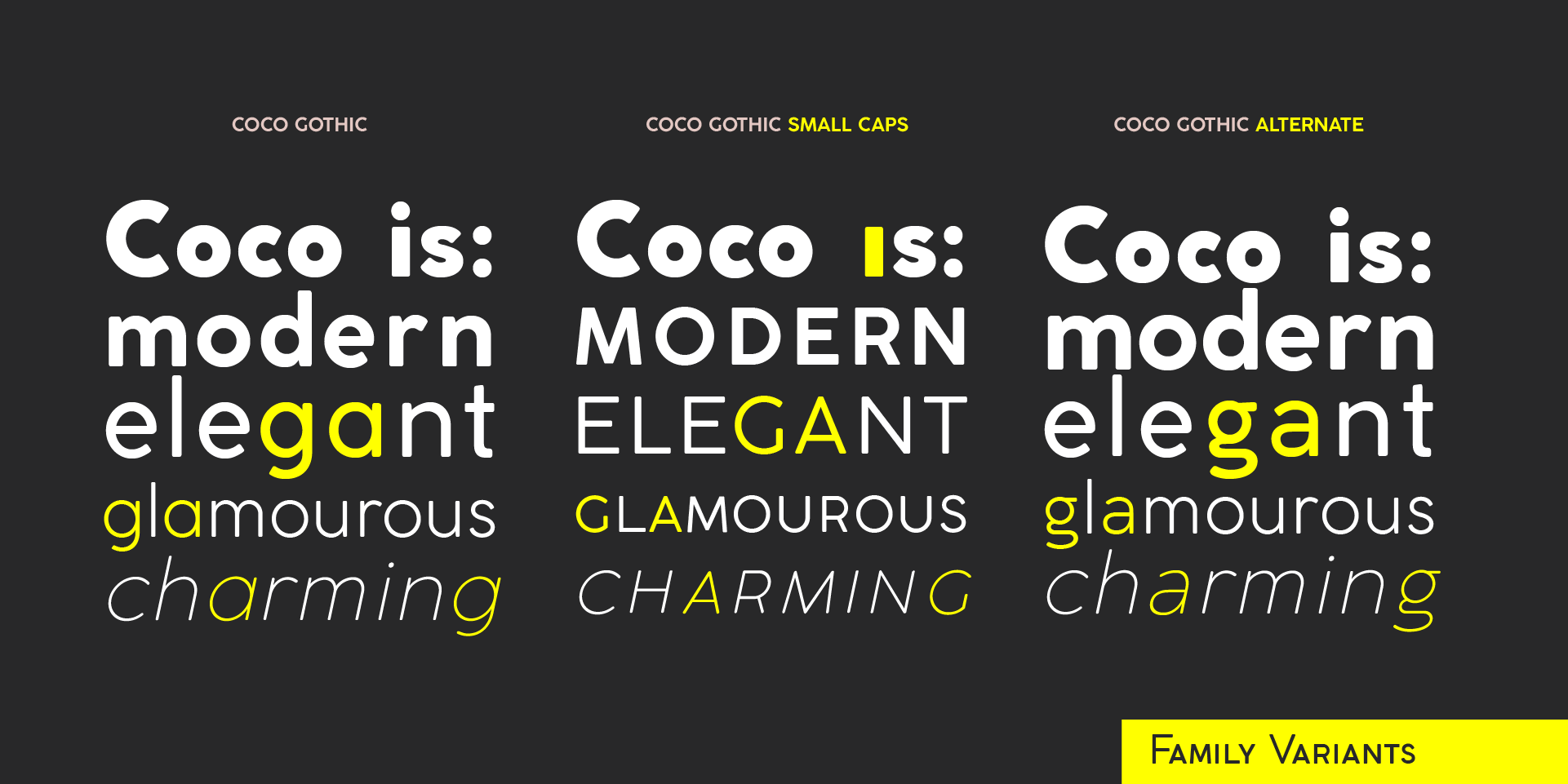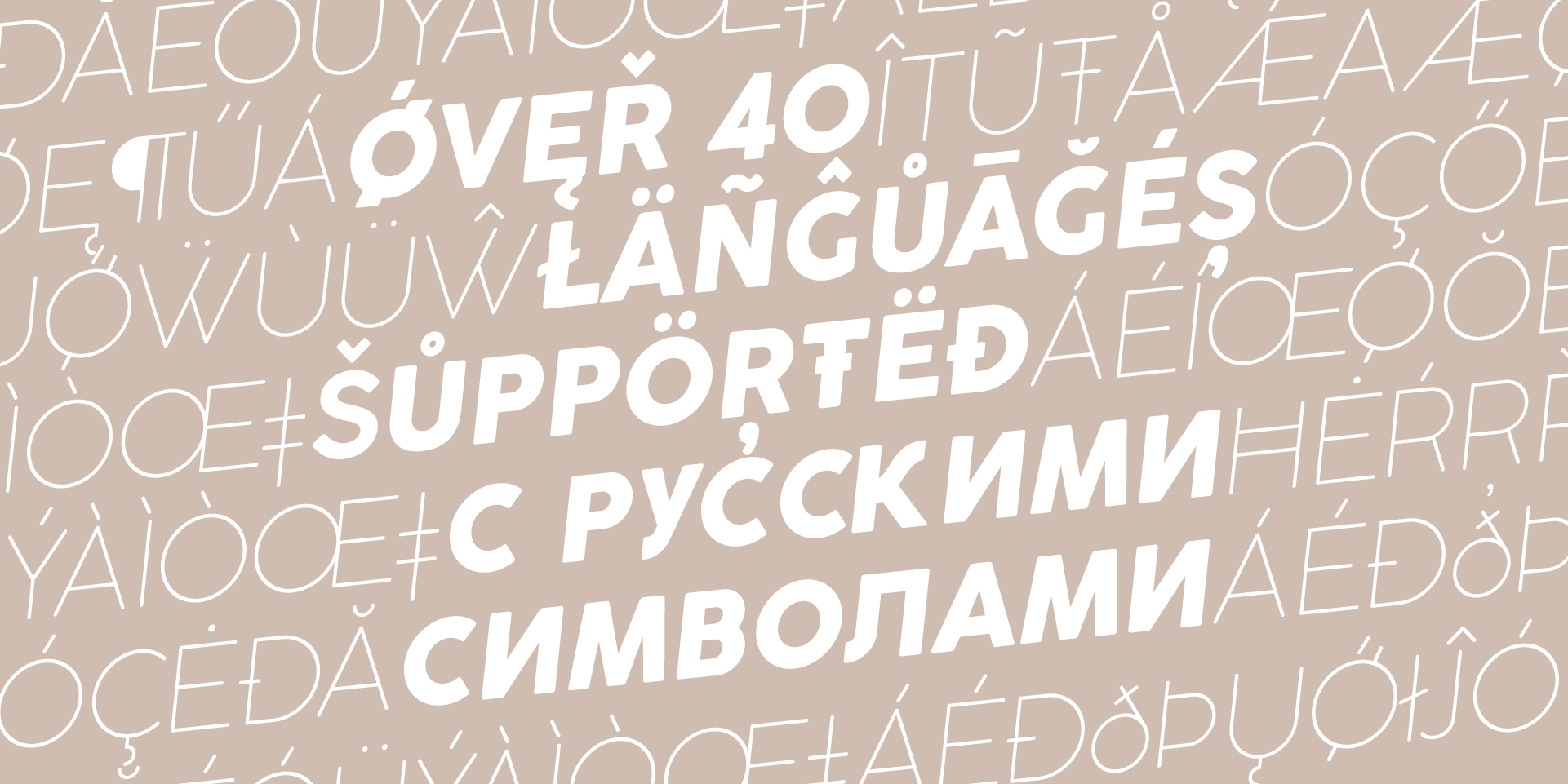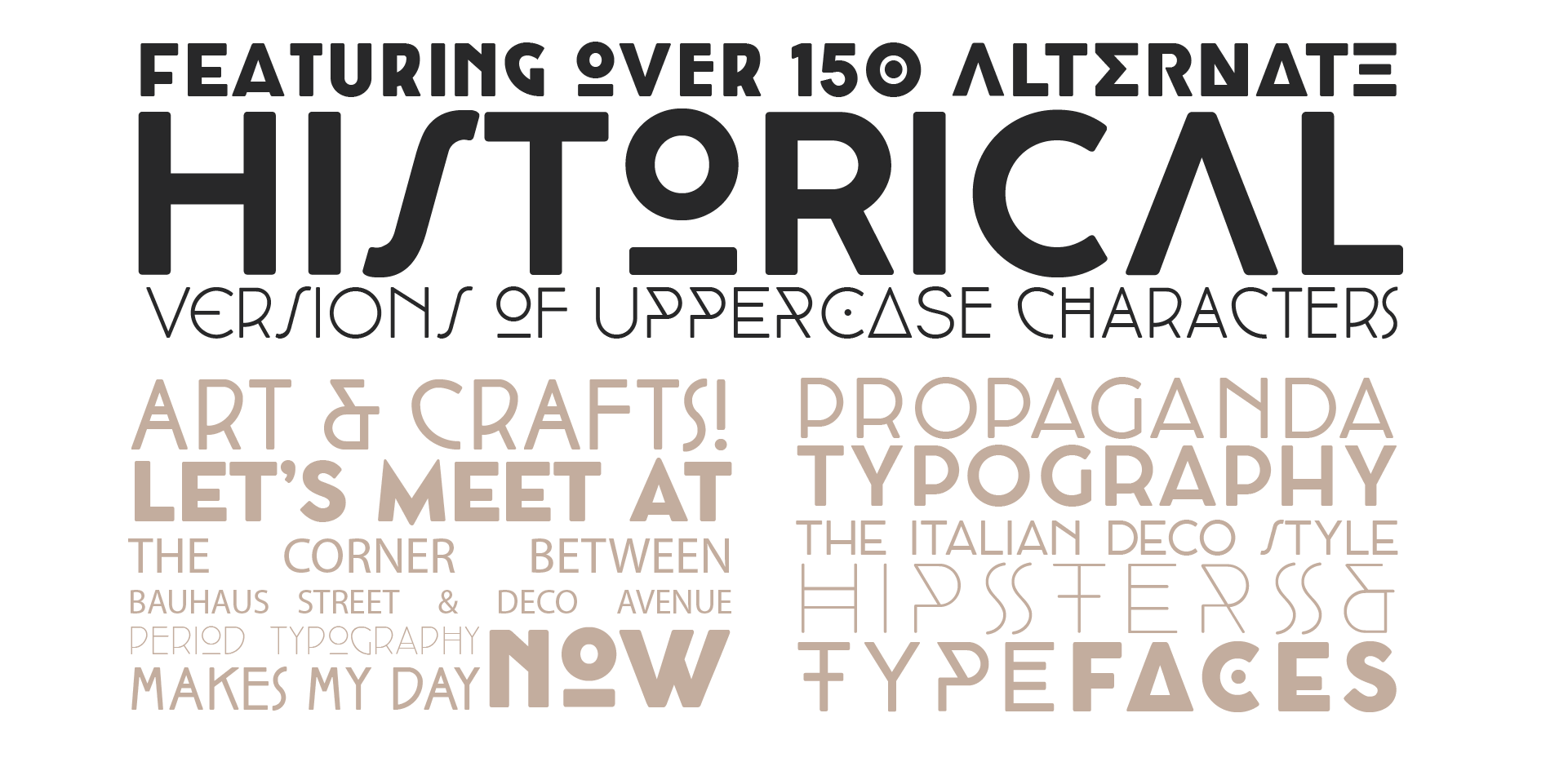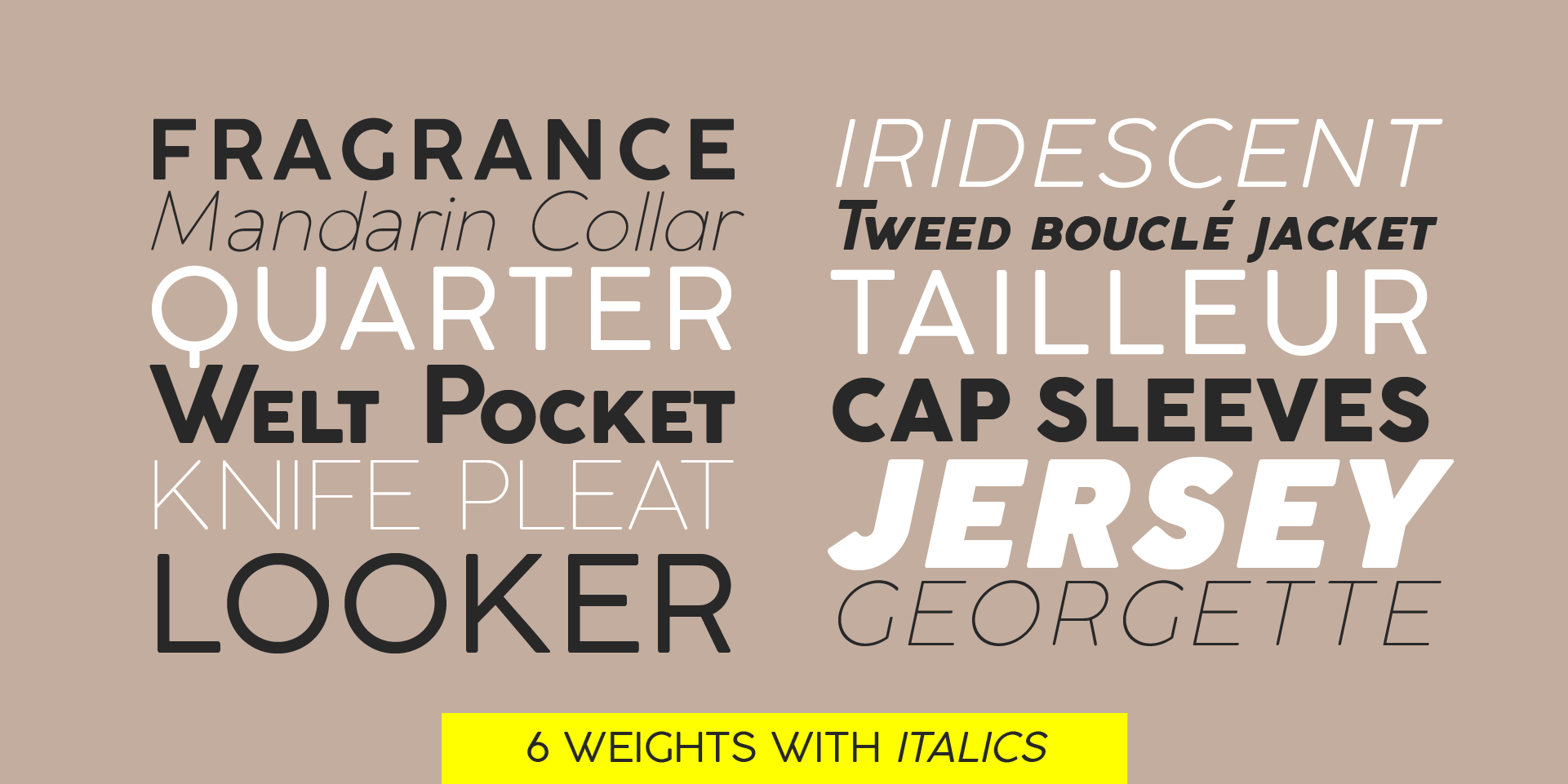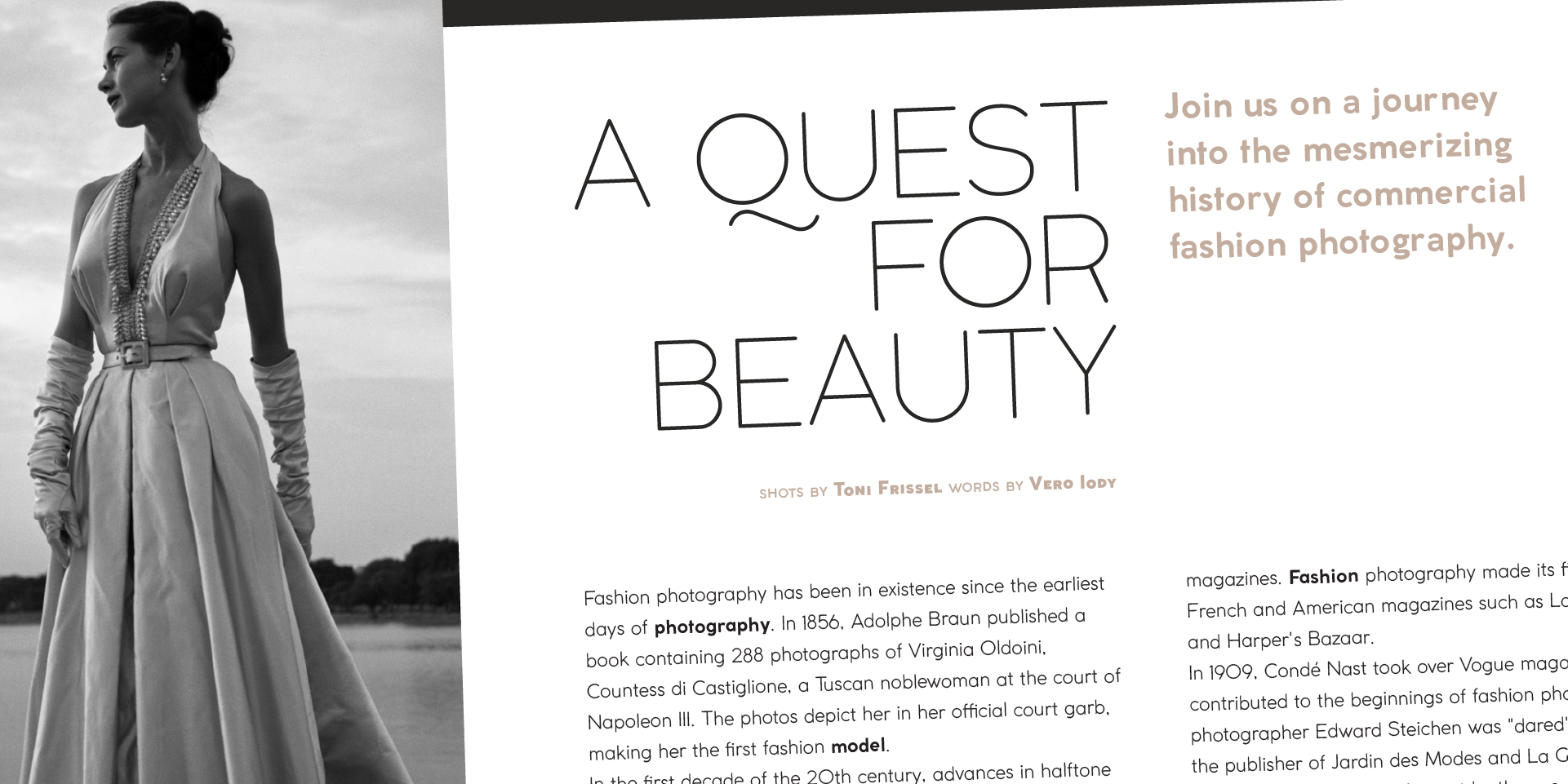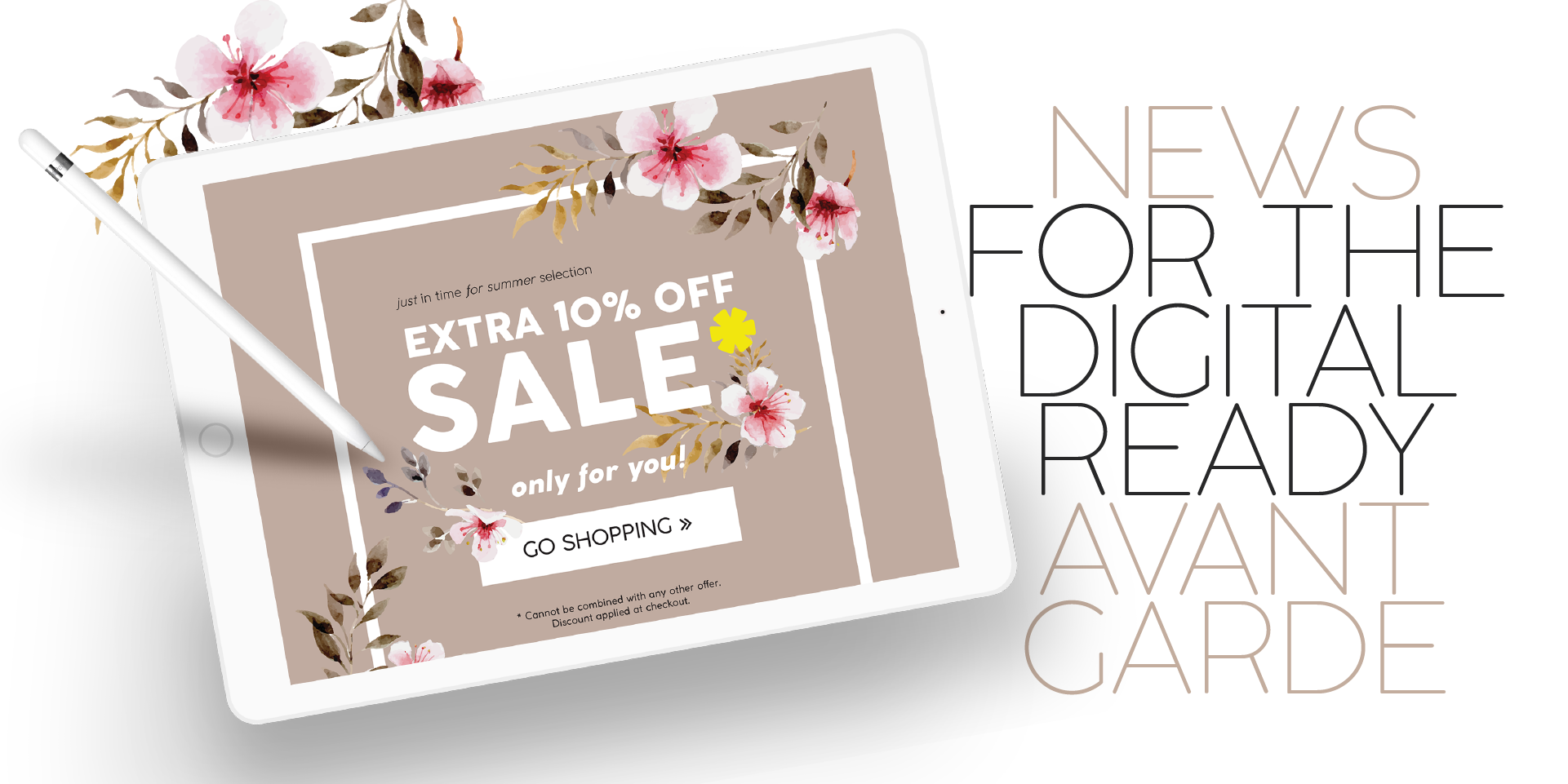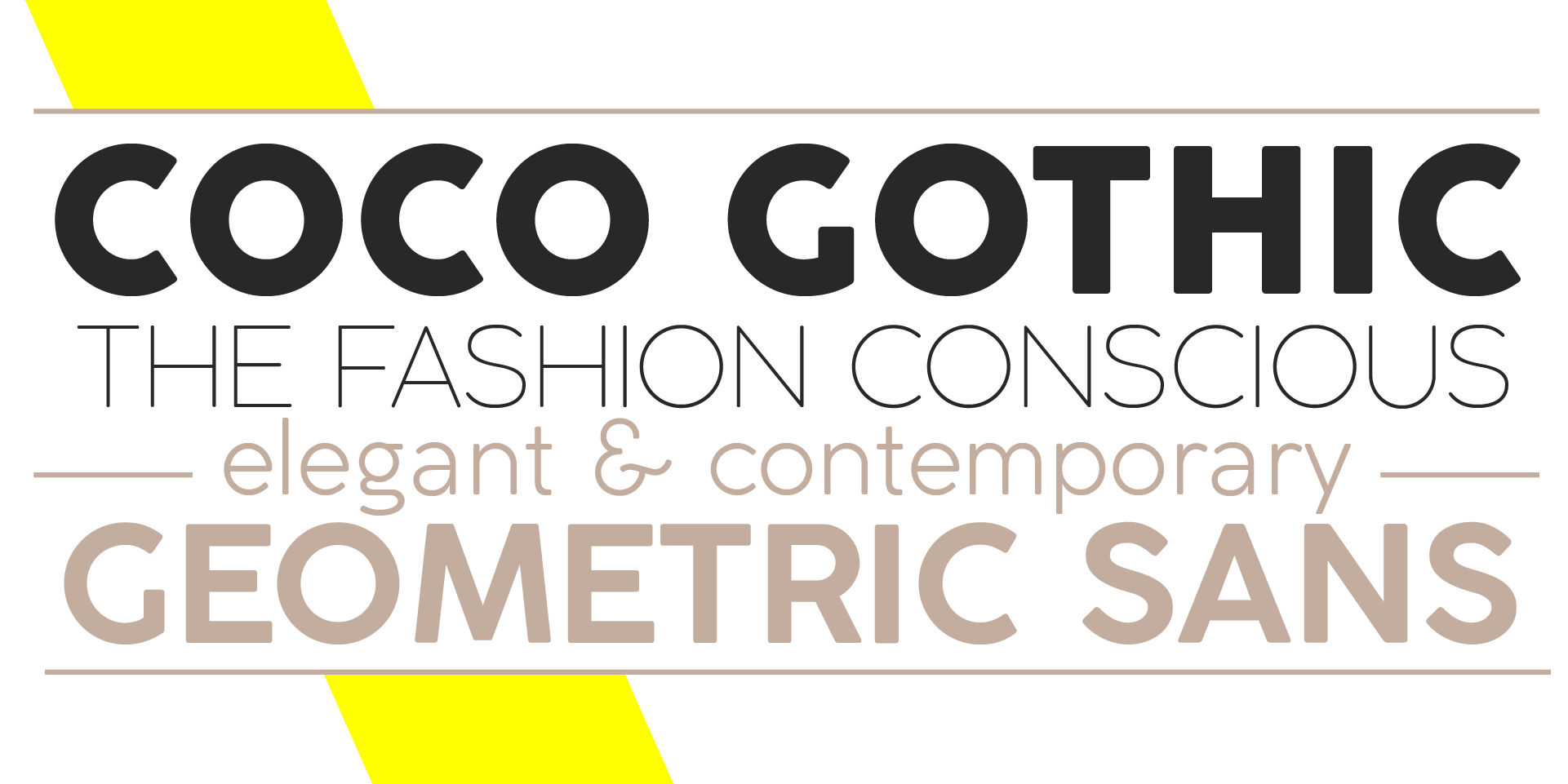
Designed by Cosimo Lorenzo Pancini part of Coco Collection set Version 1.0 / released in 2015
Coco Gothic is a contemporary take on the retro geometric sans serif style of early XX century typefaces like Futura and Avantgarde. The cold, geometric shapes typical of those modernism typefaces have been made softer and more contemporary by visual corrections and slightly rounded corners and a minimalistic design feel. The name of the typeface family comes from the nickname of fashion beloved icon Coco Chanel.
It comes in six weights with matching italics and features an extended character set with open type support for small caps, ligatures, alternates, European languages, Greek and Cyrillic alphabets. In 2017 a revised version was released, including 12 alternate and 12 smallcaps weights for a total of 36 fonts ready to solve your design problems.
Equipped with a rich array of historical variants, Coco Gothic is also an encyclopedia of styles from the last century, ready to transform itself and adapt to the mood of your text. You can check a visual presentation of this type family on our Behance Coco Gothic Page.